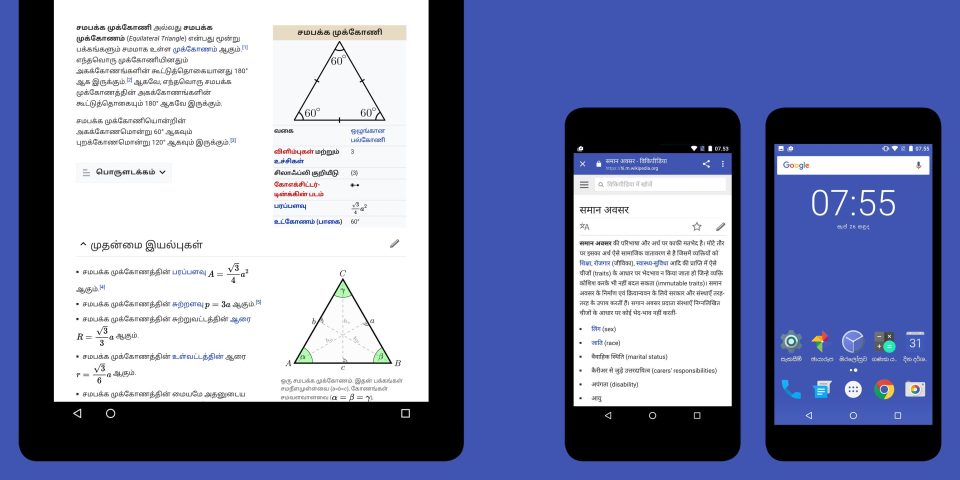
Five years ago Google set out on an ambitious project to create a font family that encompasses the 800 languages and 110,000 characters found in the Unicode standard. Now available under open source, Noto’s aim is to get rid of the blank boxes that commonly appear when a computer or website isn’t able to display text.